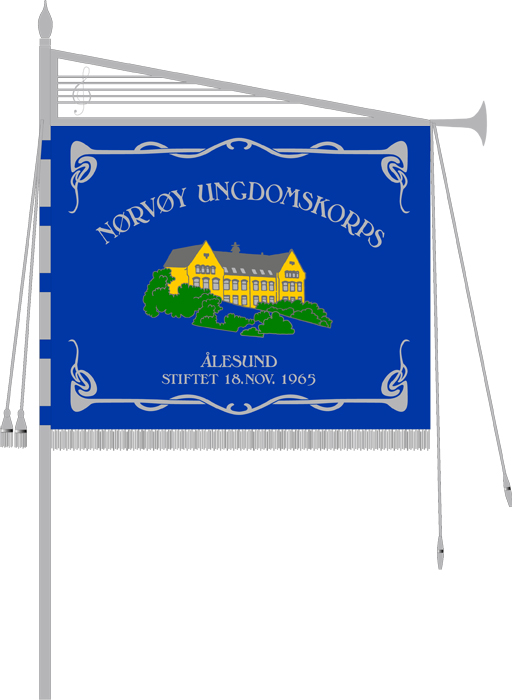
Parade banner
I am a huge fan of the signs of the older style, and love to learn more about this when I'm pretty young in the subject to date.
I have recently visited various websites and clicking around on sites like letterheadfonts, signs101, goldenstudios and of course this site (!) and have been speachless by the signs that you create around.
Going to buy all the stunning vector panels I saw at the golden studios and some letterhead fonts, so I can practice to make great signs that many of you can, maybe I will be as good one day:)
I like particularly good sign with Art Nouveau style, since my town is known for the distinctive architecture.
Aalesund burned down completely in 1904 and was rebuilt in pure Art Nouveau style.
Now I have a project in which I will make a parade banner to an school corps, but after a lot back an forth I am stuck.
Then I was hoping maybe some of you may have an idea of the design.
After seen all the great designs, I feel this hopeless :|
Posted a picture and .eps file so you can see for yourself what I so far have made :)
Ps. The green bushes infront of the school is to illustrate that there is an park infront of the school.
But its not nessesary to have an school there at all...maybe something else?
For banner or panels, get the CD's from Mike's collection. The Broadway collection has a large selection of elements from the Art Deco era that would be helpful.